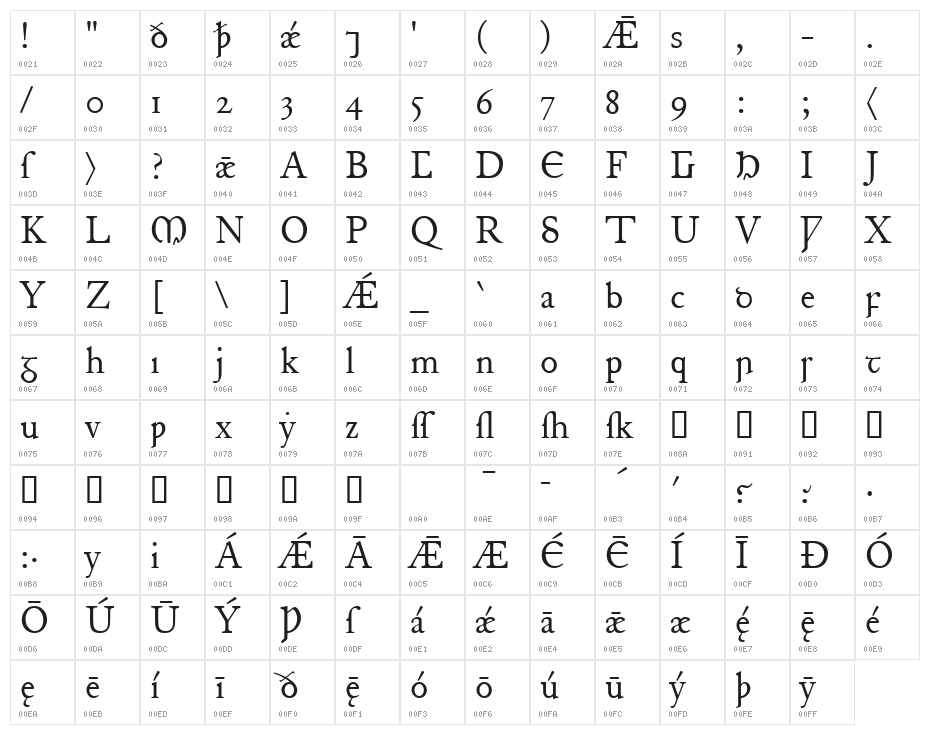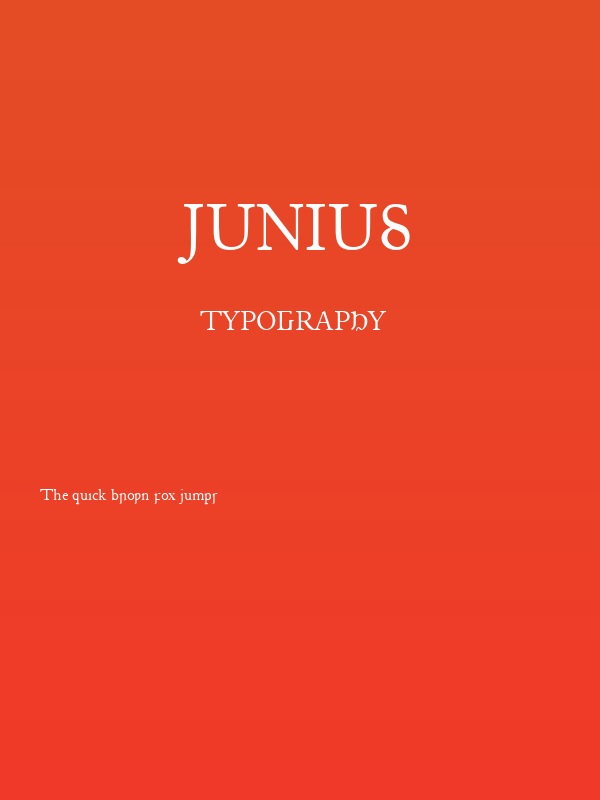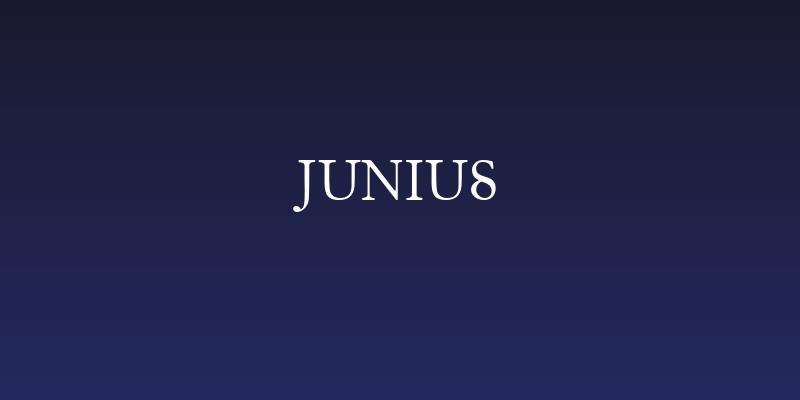
Junius Font
Junius Description
This font exhibits a unique blend of classical and modern elements, characterized by its distinct serifs and elegant curves. The uppercase letters have a traditional feel with sharp serifs and a slight contrast in stroke thickness, while the lowercase letters introduce a more playful and artistic flair with their varied shapes and flowing lines. The numerals are clear and legible, maintaining the font's overall aesthetic. Special characters are thoughtfully designed, complementing the style of the alphabet. This font is versatile, suitable for both formal and creative applications, offering a sophisticated yet approachable look.
Overall StyleClassic
Proposed ProjectsIdeal for book covers, editorial design, branding, and invitations.